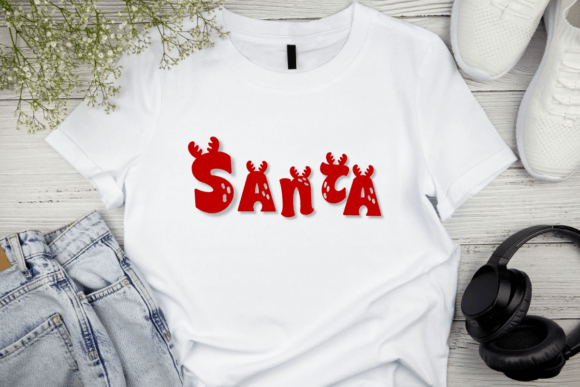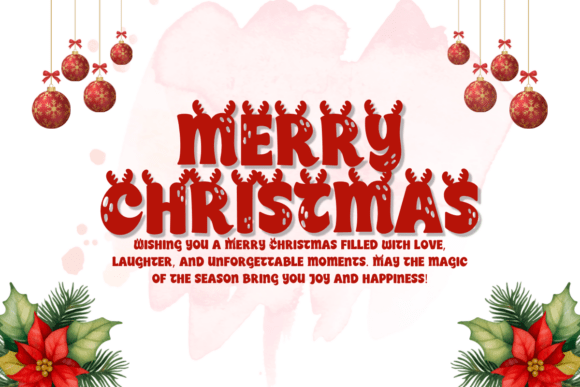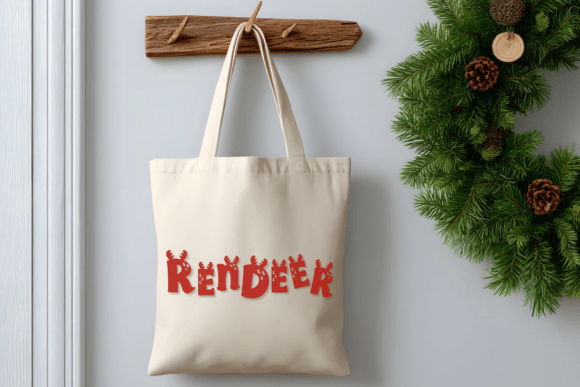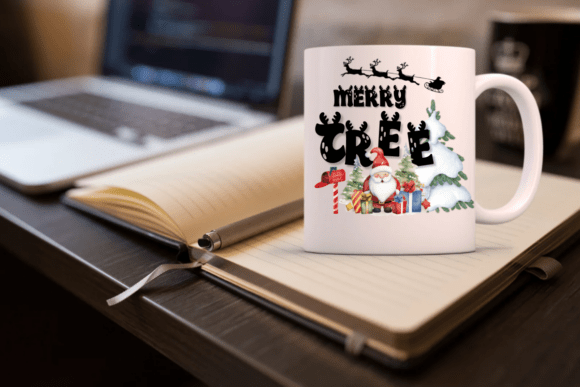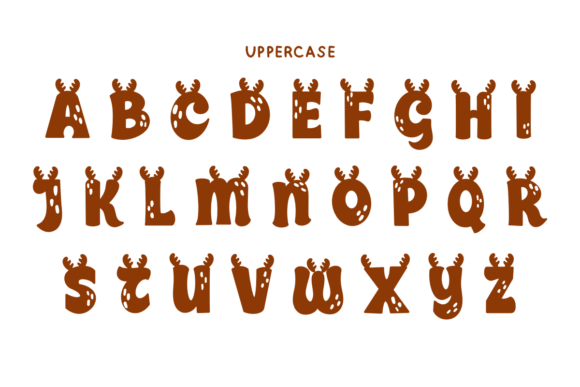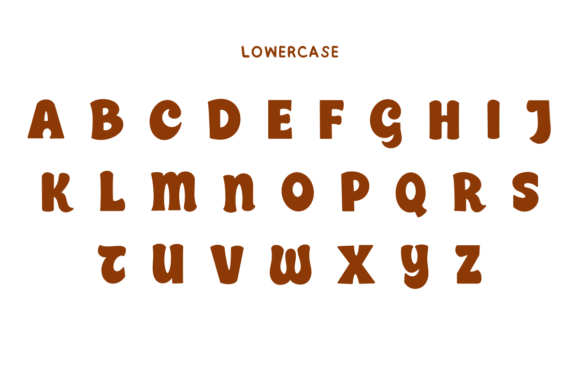
Unveil the Magic of Christmas with the Exceptional Christmas Reindeer Font
The holiday season is upon us, and with it comes the joy of creating memorable designs that capture the essence of Christmas. Whether you’re a designer, crafter, or simply someone who loves the festive season, the Christmas Reindeer font is here to add a sprinkle of cheer to your projects. This decorative font is not just limited to the yuletide season; its versatility makes it perfect for a wide range of design applications.
A Font that Embodies the Spirit of Christmas
The Christmas Reindeer font is designed to evoke the magic of the holiday season. Its decorative style is reminiscent of traditional Christmas decorations, with intricate details that add a touch of nostalgia to any design. Whether you’re taking notes, writing diary entries, or crafting greeting cards, this font is sure to make your designs stand out.
Beyond Christmas: A Font for All Seasons
While the Christmas Reindeer font is perfect for holiday-themed designs, its versatility extends far beyond the yuletide season. You can use it to create eye-catching banners, engaging content, custom mug designs, bespoke cards, personalized shirts, charming stationery, and even evoke emotions through social media posts.
Design Applications for Christmas Reindeer Font
• Banners: Create attention-grabbing banners for events, sales, or promotions with the Christmas Reindeer font. Its decorative style is sure to draw in your audience.
• Social Media Posts: Add a touch of festive cheer to your social media posts with the Christmas Reindeer font. It’s perfect for creating engaging content that resonates with your followers.
• Custom Mugs: Design personalized mugs for friends, family, or coworkers with the Christmas Reindeer font. It’s a thoughtful gift that’s sure to bring a smile.
• Bespoke Cards: Create one-of-a-kind greeting cards for special occasions with the Christmas Reindeer font. Its decorative style adds a touch of elegance to any card.
• Personalized Shirts: Design custom shirts for holiday parties, events, or everyday wear with the Christmas Reindeer font. It’s a fun way to express your personality.
• Charming Stationery: Add a touch of whimsy to your stationery with the Christmas Reindeer font. It’s perfect for writing letters, notes, or journal entries.
Why Choose the Christmas Reindeer Font?
So, why choose the Christmas Reindeer font for your designs? Here are just a few reasons:
• Unique Style: The Christmas Reindeer font has a unique, decorative style that’s sure to make your designs stand out.
• Versatility: This font is versatile and can be used for a wide range of design applications, from holiday-themed designs to everyday projects.
• Memorable Designs: With the Christmas Reindeer font, you can create memorable designs that capture the essence of the holiday season.
Font Name Christmas Reindeer Font
Author Bee piyanuch
The Christmas Reindeer font is a must-have for designers, crafters, and anyone who loves the festive season. Its decorative style adds a sprinkle of cheer to any project, making it perfect for holiday-themed designs and everyday projects alike. With its versatility, ease of use, and unique style, the Christmas Reindeer font is sure to make your designs memorable. So, unveil the magic of the holiday season with the exceptional Christmas Reindeer font and make this season one to remember!